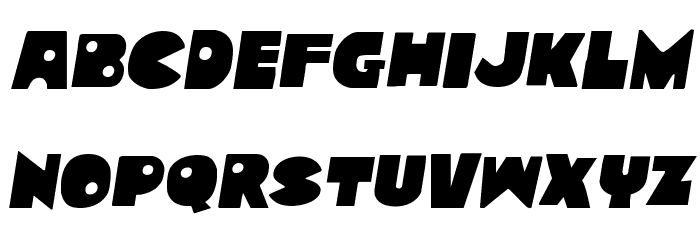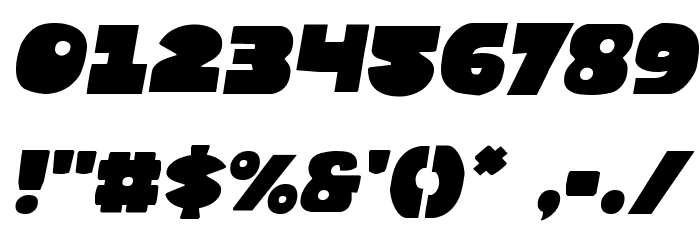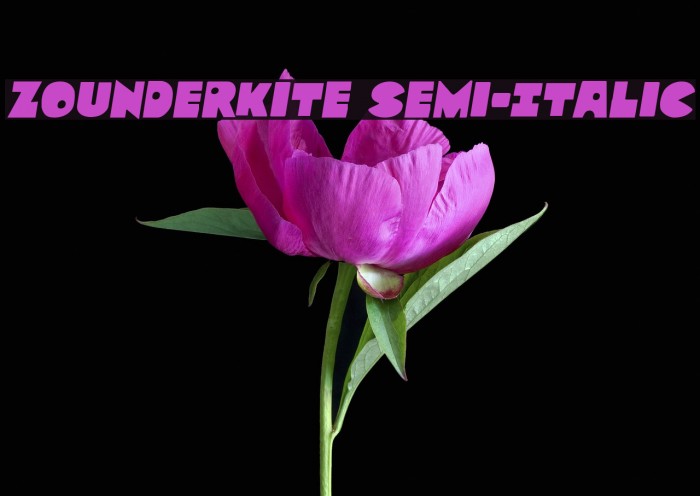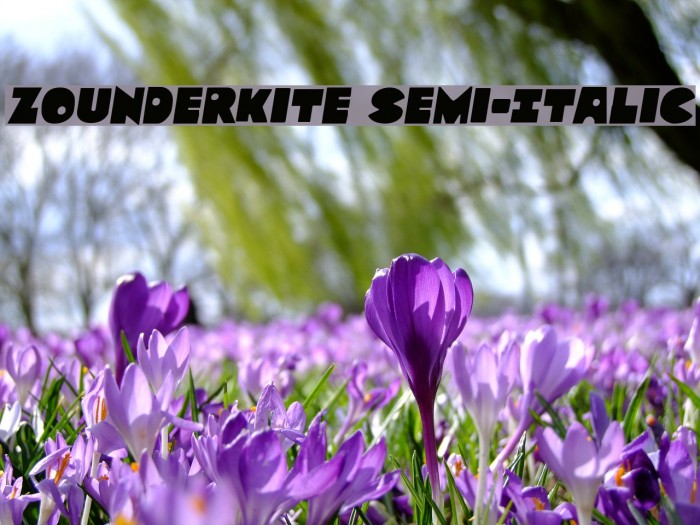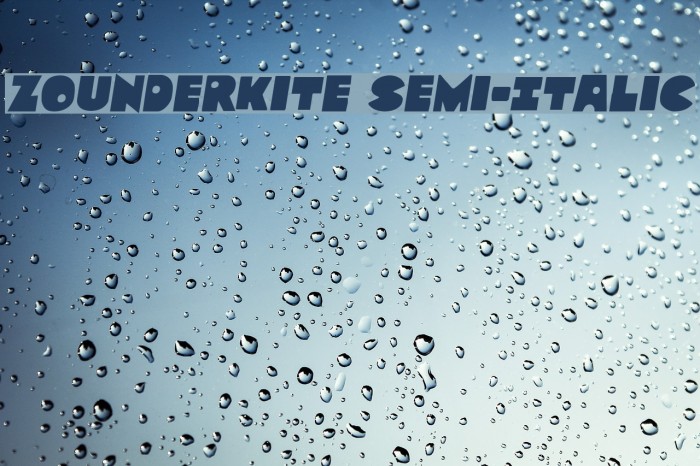
Zounderkite Semi-Italic Font
This font features bold, geometric letterforms with a distinctively playful and modern style. The characters are heavily weighted, with a strong presence that makes them ideal for attention-grabbing designs. The semi-italic slant adds a dynamic feel, enhancing the sense of movement and energy. The rounded edges and unique cutouts in certain letters contribute to its quirky and unconventional appearance. This font is well-suited for creative projects that require a bold statement, such as posters, branding, or headlines.
A bold, geometric font with a playful, modern style and semi-italic slant.
- Proposed Projects: Ideal for posters, branding, headlines, and any creative project requiring a bold statement.